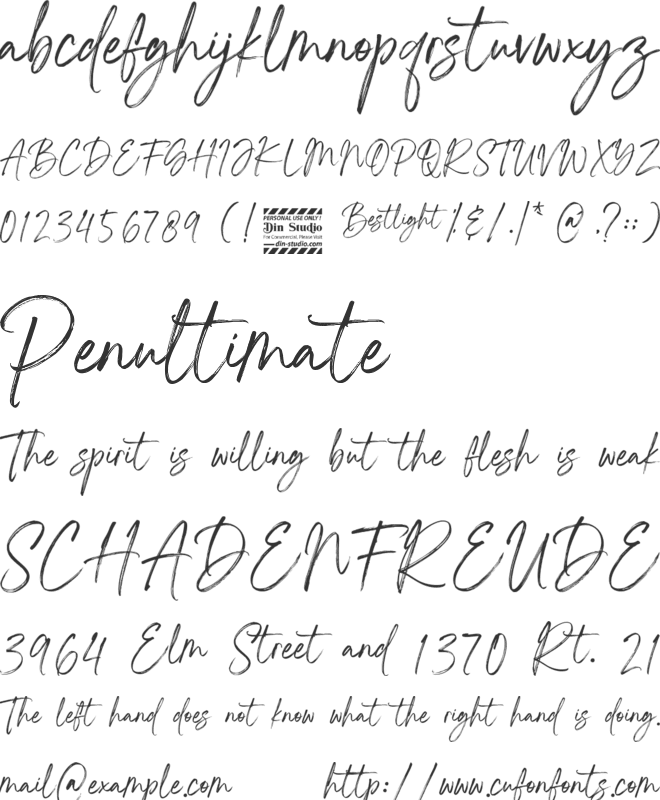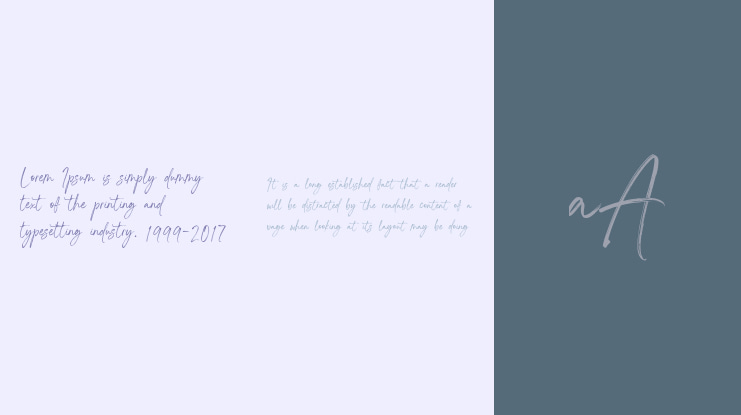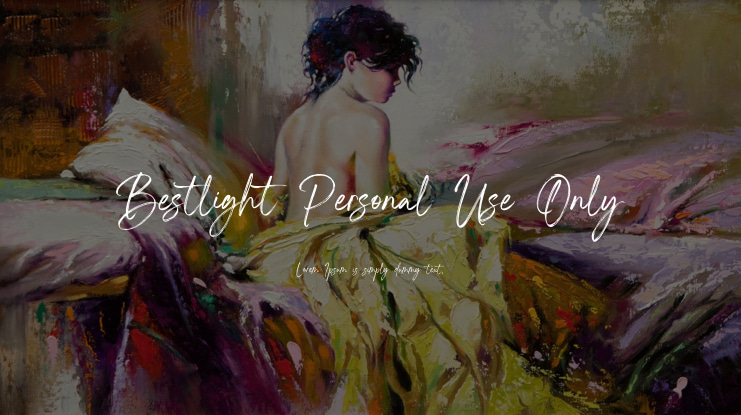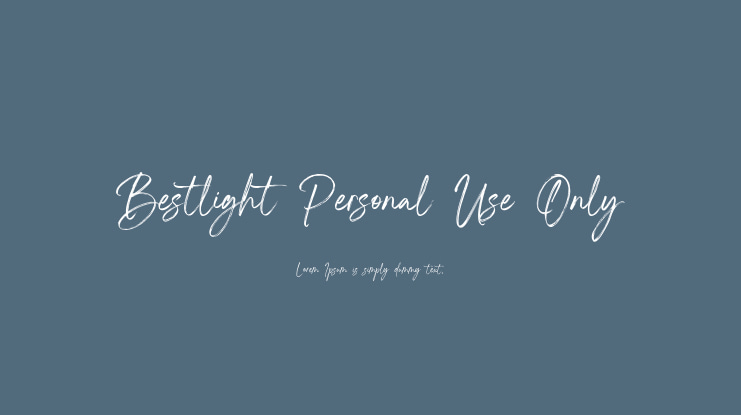
Bestlight Personal Use Only Font
Bestlight, a stunning script font designed in elegant cursive handwriting with exquisite brush details. Perfectly crafted to add a touch of sophistication to your projects, Bestlight flows effortlessly with its smooth curves and delicate strokes. Its natural, hand-drawn feel gives any design a personalized and artistic flair. Whether you’re aiming for a luxurious vibe or a playful, casual look, Bestlight adapts beautifully to any context. Illuminate your creations with the elegance of Bestlight and leave a lastingimpression.
• Ligatures
• Stylistic Sets
• Multilingual Supports
• PUA Encoded
• Numerals and Punctuations